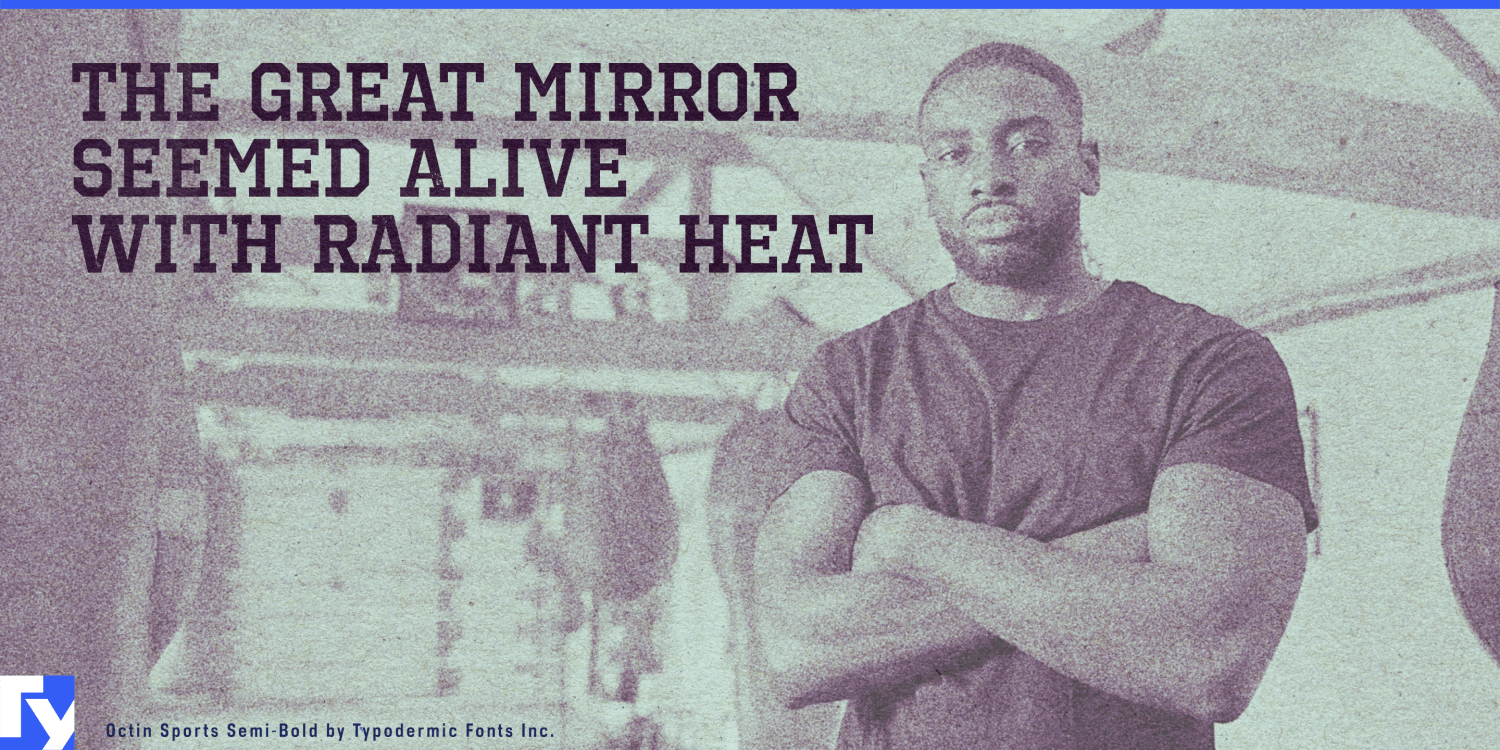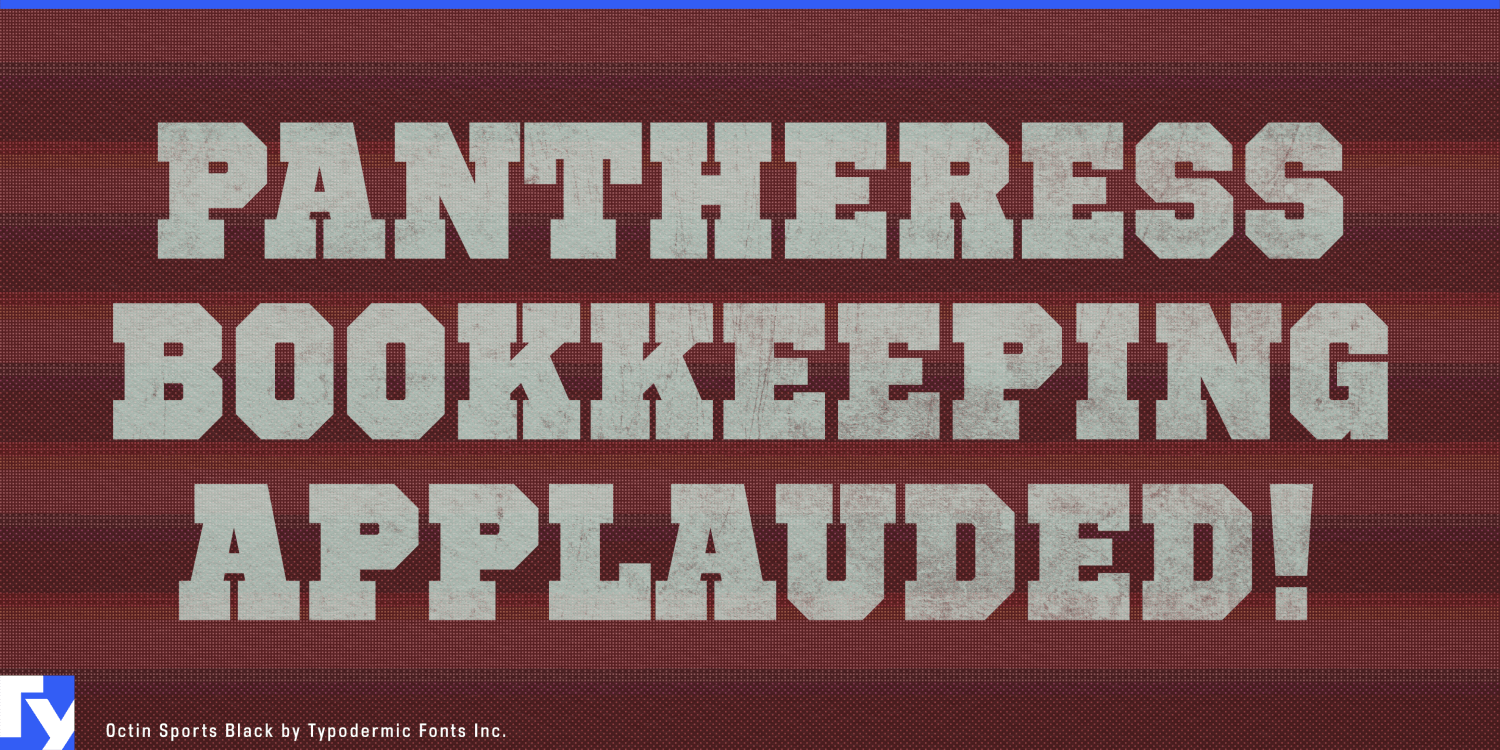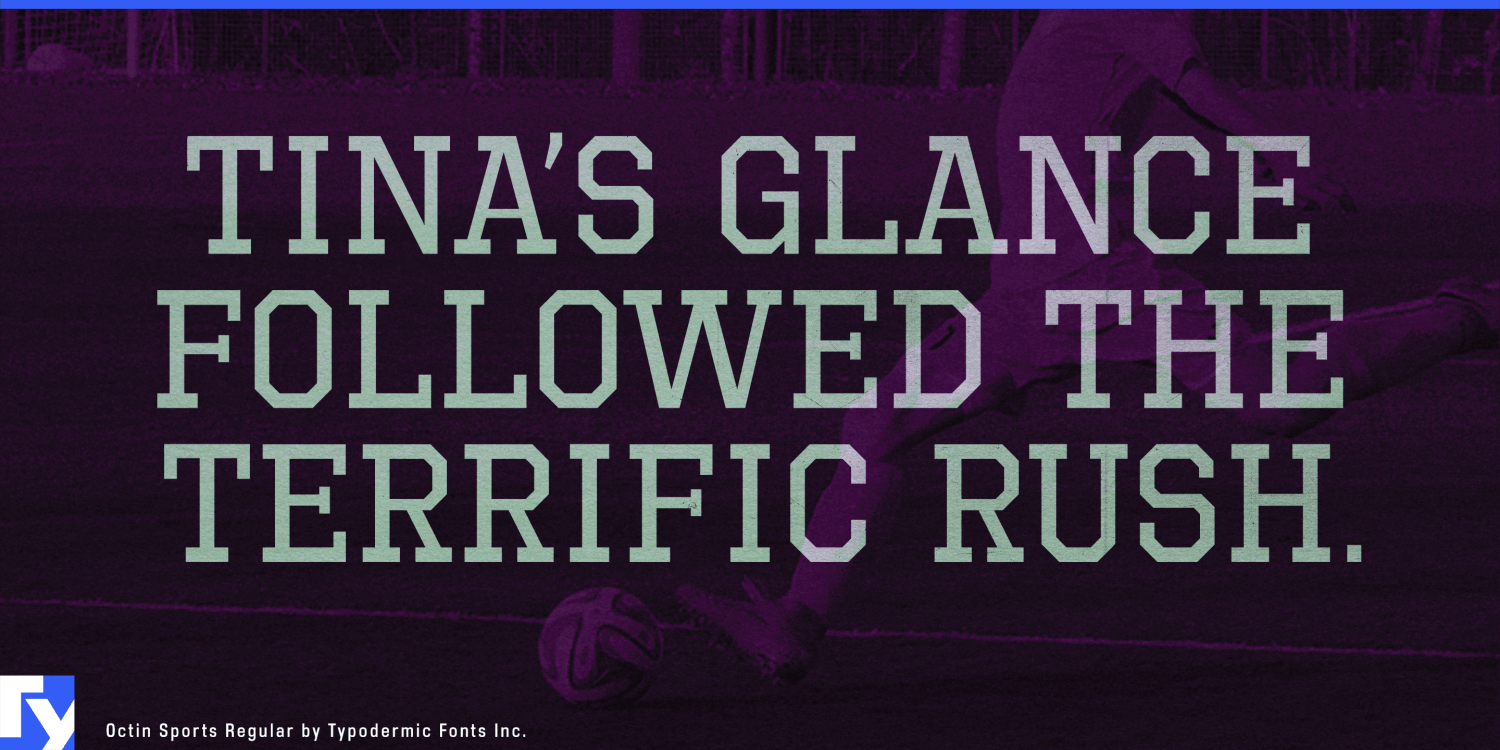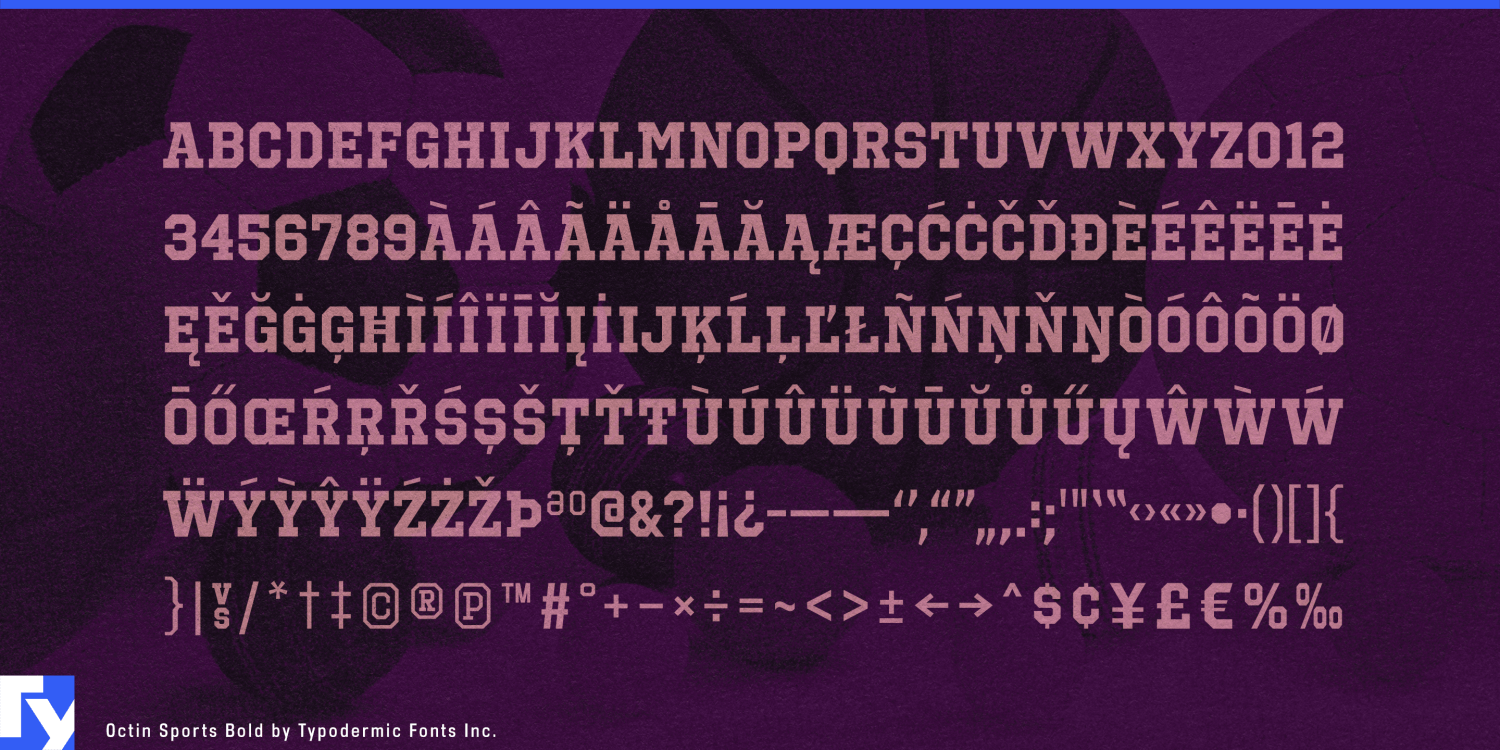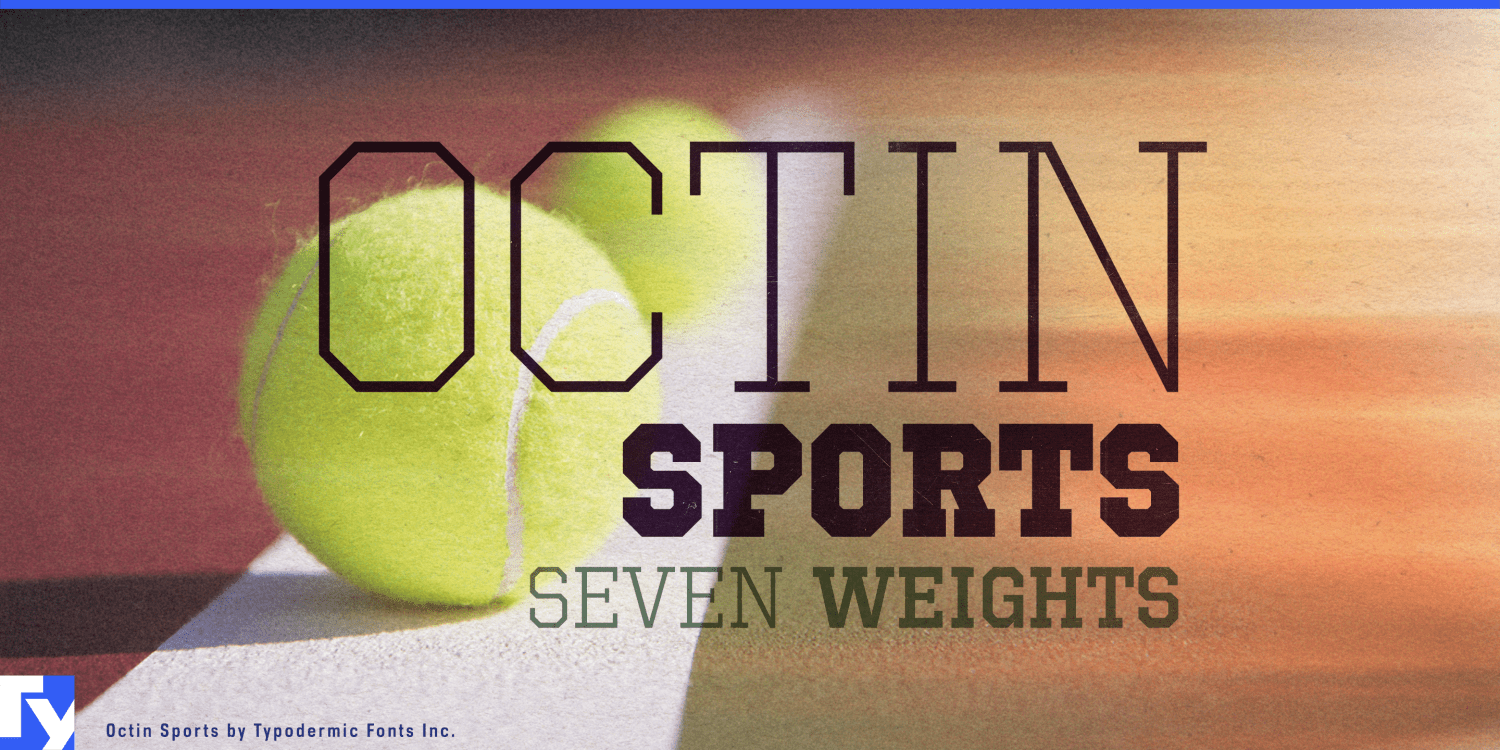
About Octin Sports
Get ready to break records with Octin Sports, the typeface that’s always in peak condition. With seven weights ranging from featherlight to heavyweight champion, this font family is primed to take your designs from rookie status to hall of fame…